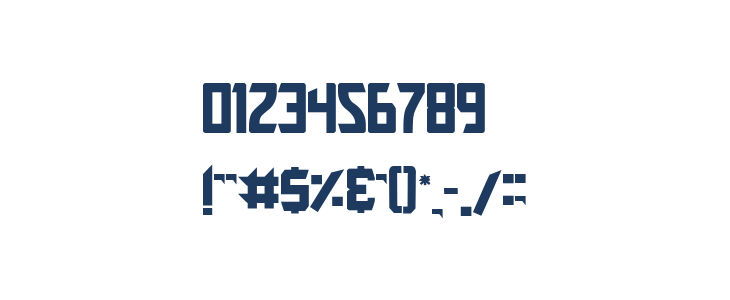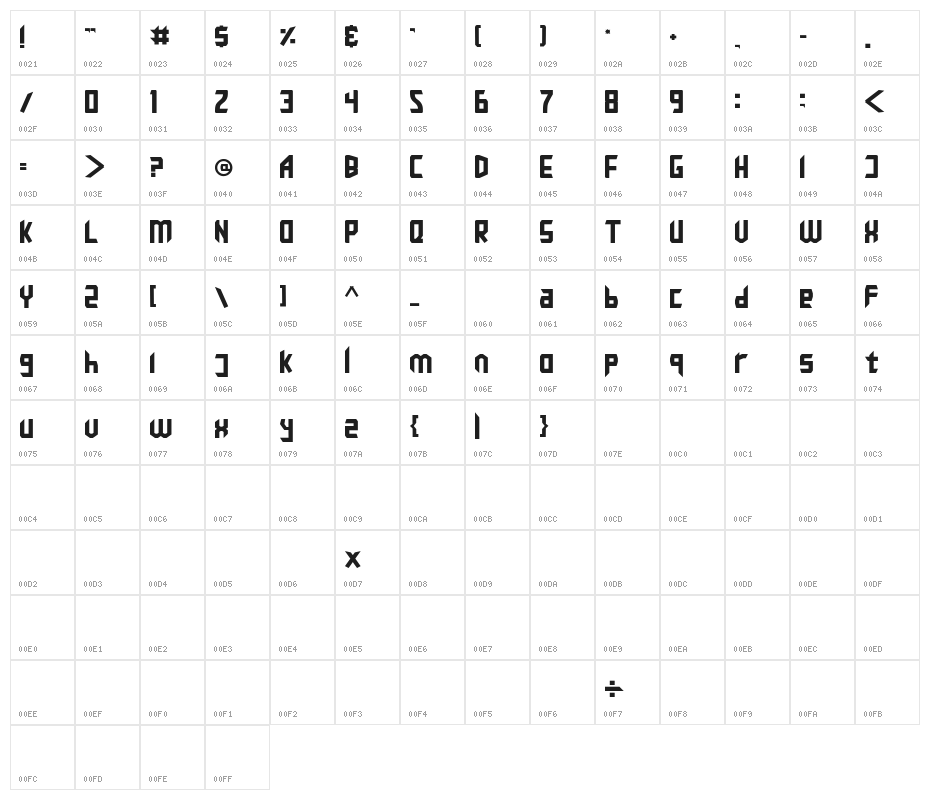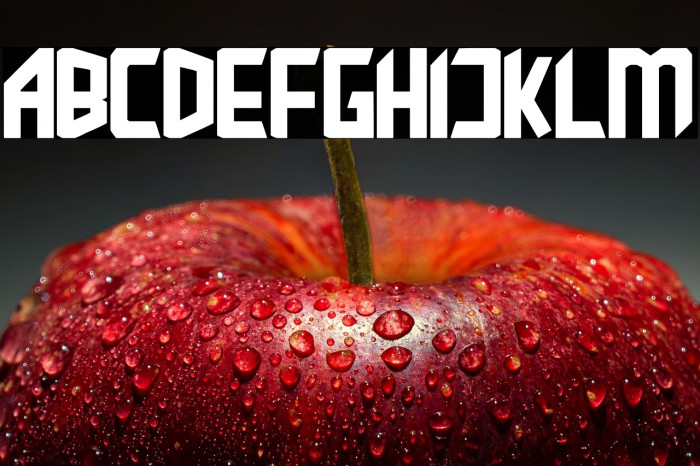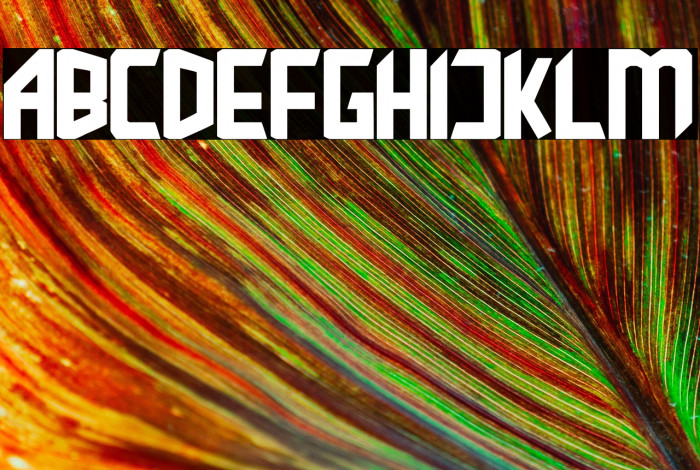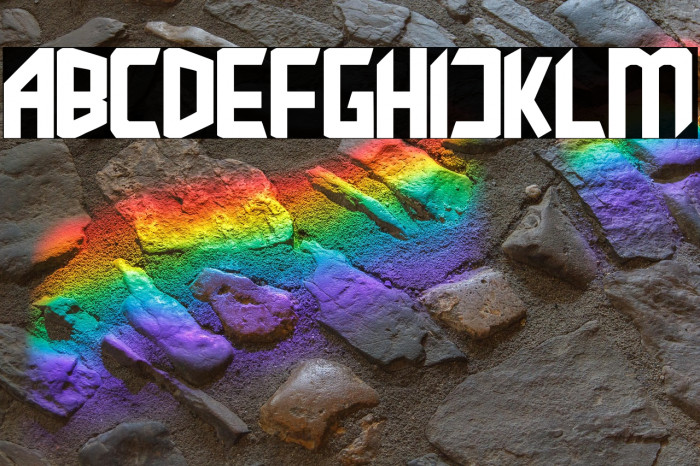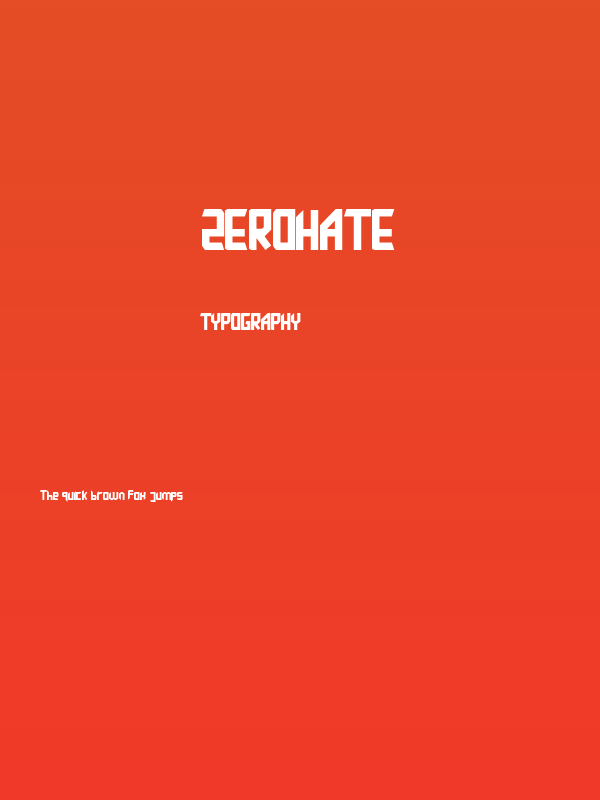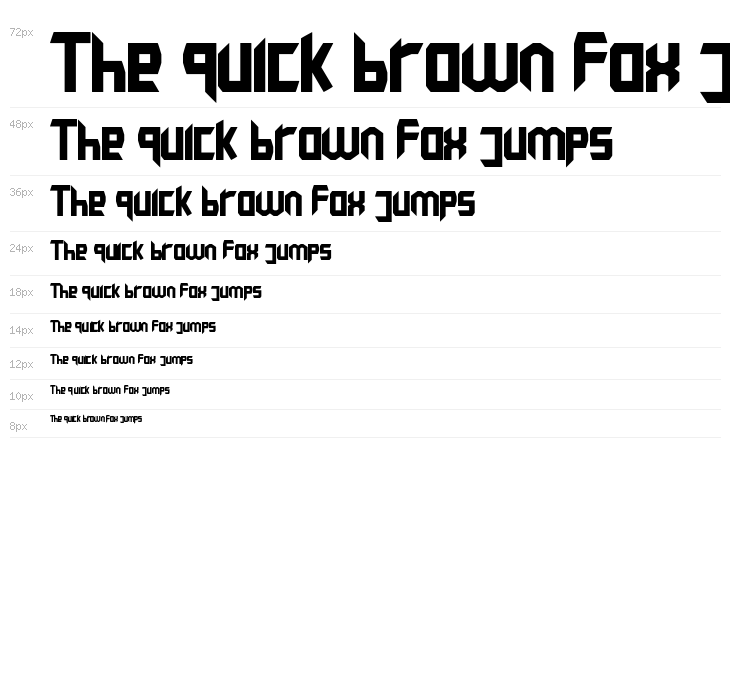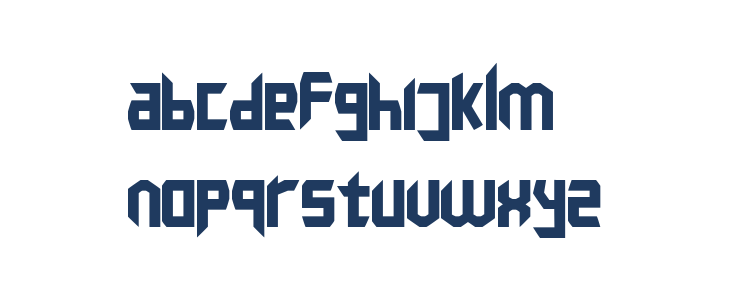
ZEROHATE Font
ZEROHATE Description
This font features a bold, geometric design with sharp angles and a futuristic aesthetic. The characters are constructed with thick, uniform strokes, giving them a strong and impactful appearance. The uppercase and lowercase letters maintain a consistent style, with angular cuts and a blocky structure. Numbers and special characters follow the same design principles, ensuring a cohesive look across all glyphs. The font's unique style makes it stand out, ideal for projects that require a modern and edgy feel.
Overall StyleFuturistic, Modern
Proposed ProjectsIdeal for sci-fi themed designs, video game titles, posters, and branding that requires a modern, edgy look.